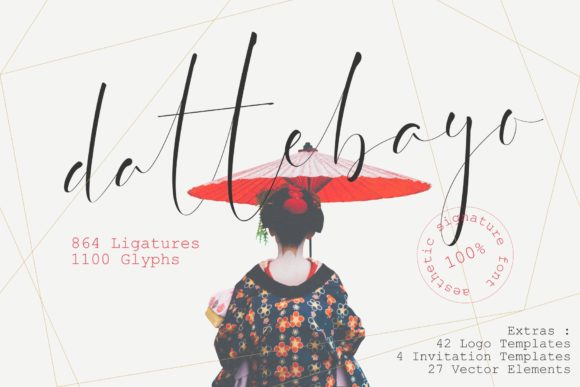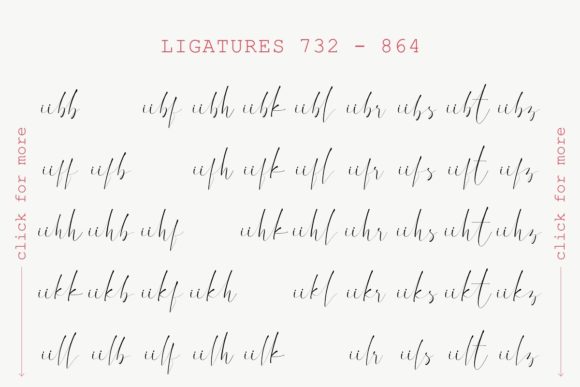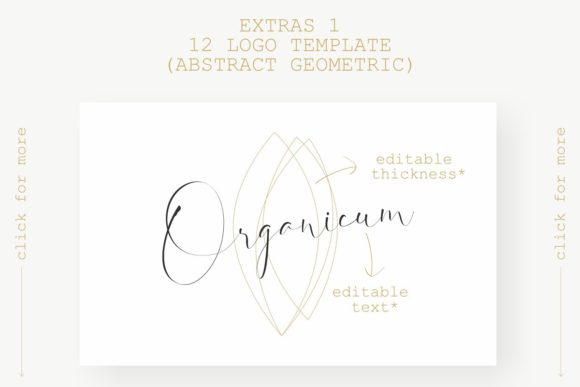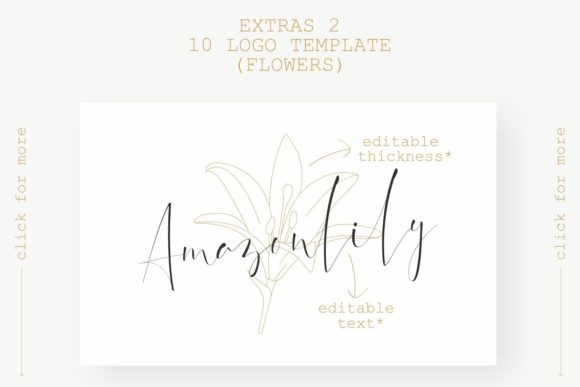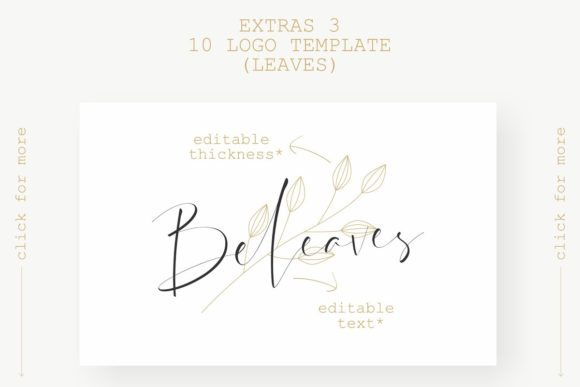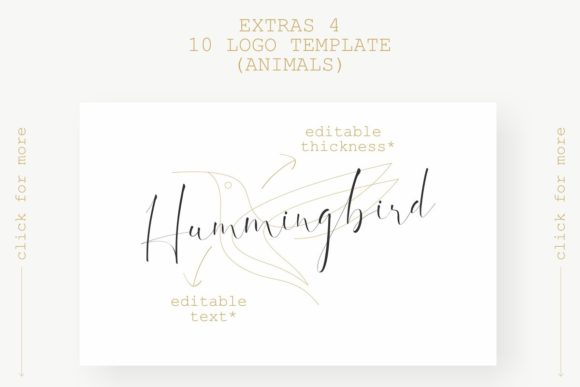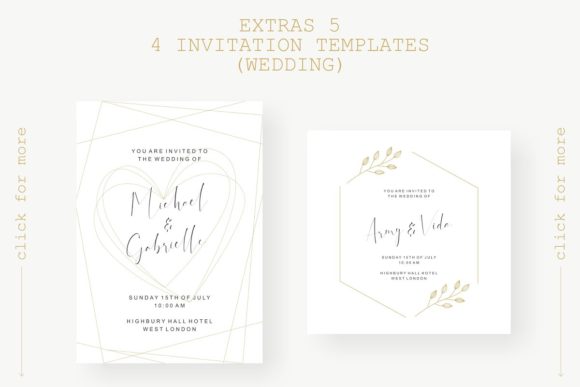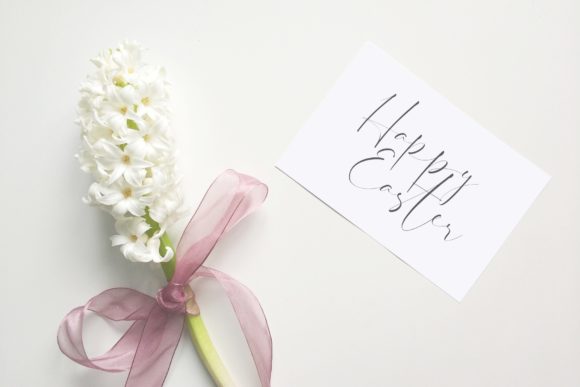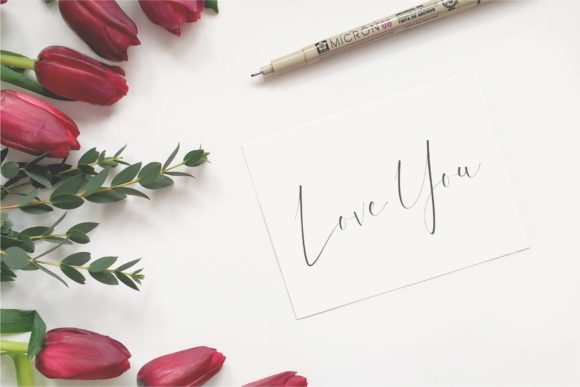
Dattebayo Font
About Dattebayo Font
The Dattebayo is an aesthetic signature font with lots of ligatures and extras! It has thin elegant letters which will give your design a luxurious feel.
It includes 42 logo templates, 4 invitation templates, and 27 vector elements as a bonus!